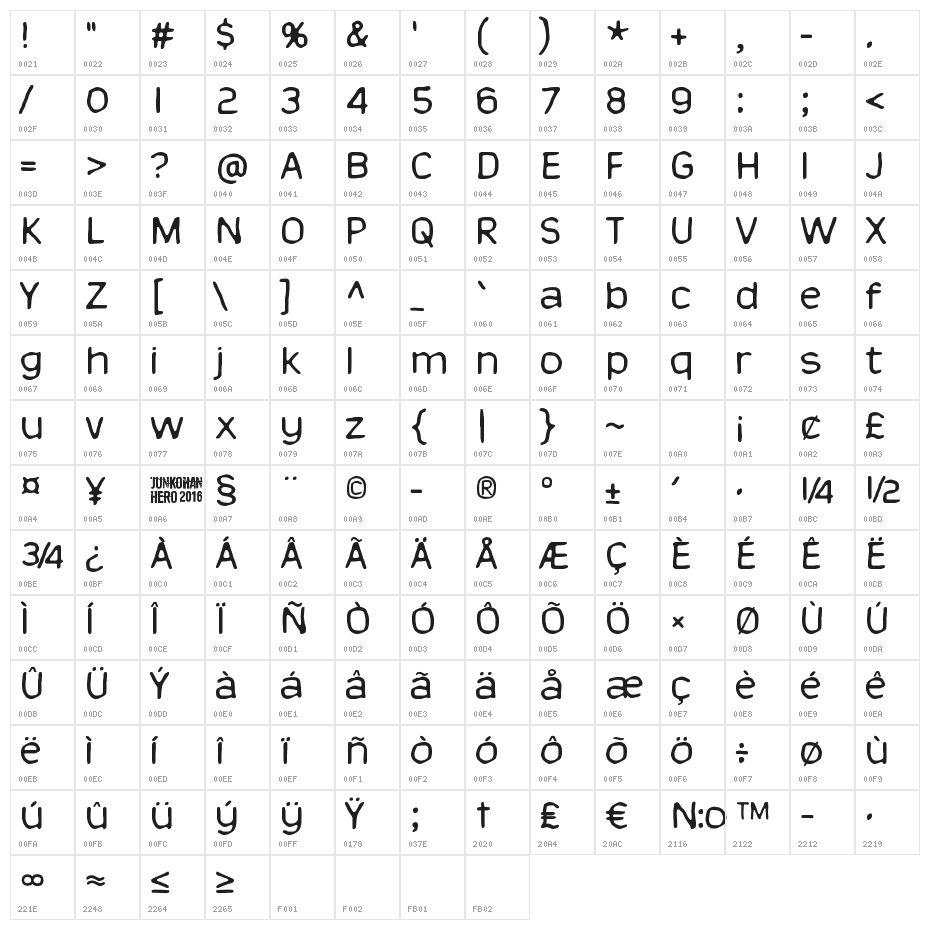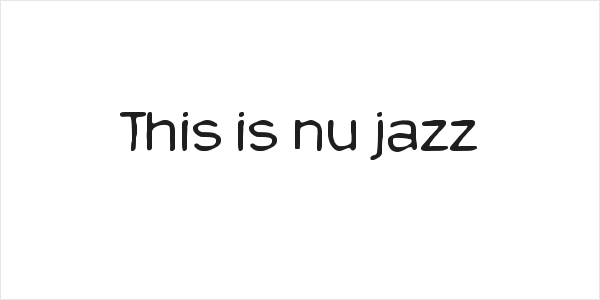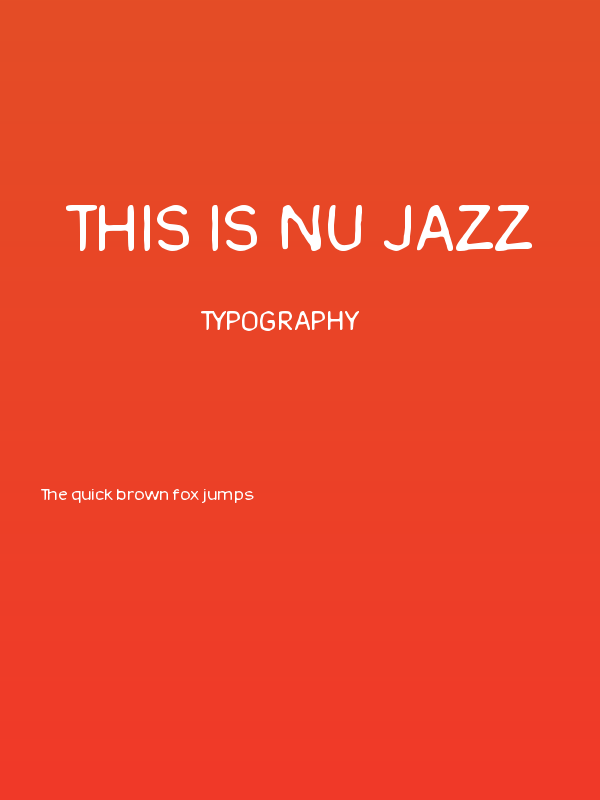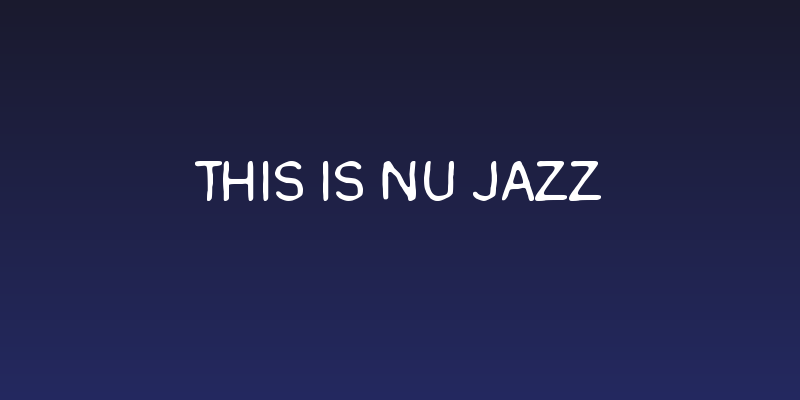
This is nu jazz Font
This is nu jazz Description
This font features a playful and informal style, characterized by its rounded and slightly irregular letterforms. The strokes are consistent in thickness, giving it a uniform appearance, while the rounded edges add a friendly and approachable feel. The uppercase and lowercase letters maintain a consistent height, contributing to its readability. The numerals and special characters follow the same design principles, ensuring cohesion across all elements. This font's unique style makes it suitable for projects that require a casual and modern touch.
| Proposed Projects | Ideal for children's books, casual branding, playful posters, and informal digital content. |